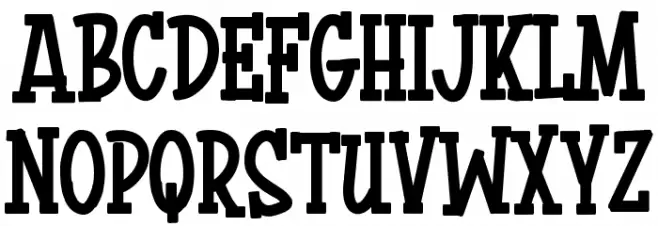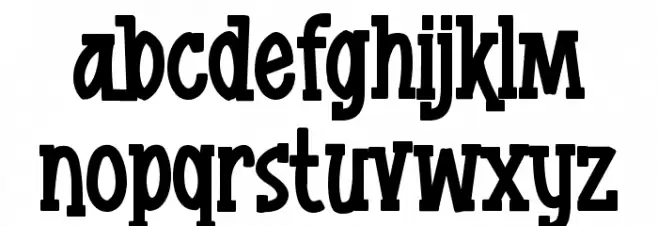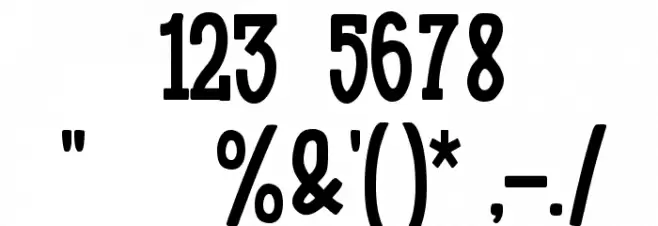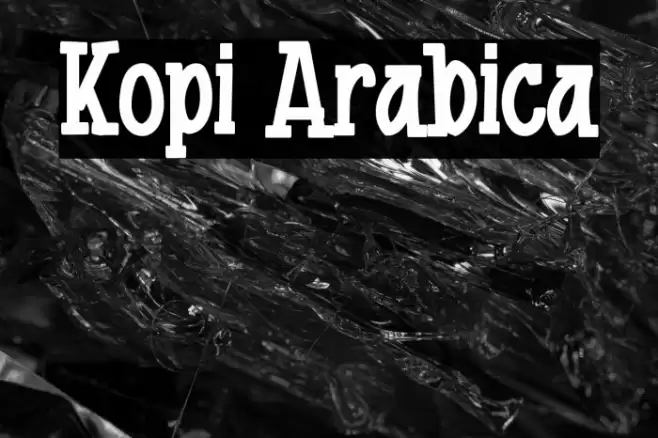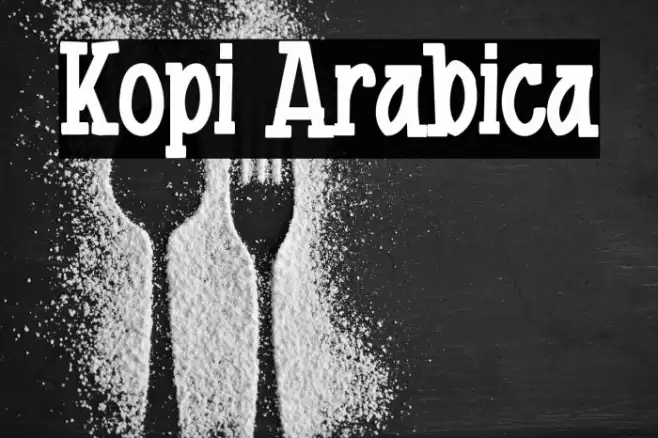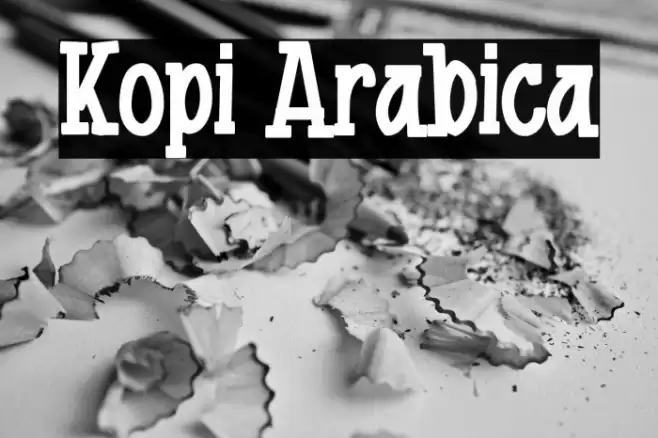
Kopi Arabica Font
Kopi Arabica Description
This font features a bold and playful design with a strong presence. The characters are slightly condensed, giving it a compact feel while maintaining readability. The strokes are thick and consistent, providing a uniform appearance across all characters. The uppercase letters are tall and commanding, while the lowercase letters have a friendly, rounded quality. The numbers and special characters are designed to match the overall style, ensuring cohesion throughout. This font's unique personality makes it suitable for creative and eye-catching designs.
A bold, playful font with thick strokes and a slightly condensed style.
- Proposed Projects: Ideal for posters, headlines, branding, and any project requiring a bold and playful touch.
- Overall Style: Playful, Bold
- Use Case: Headlines, Posters, Branding